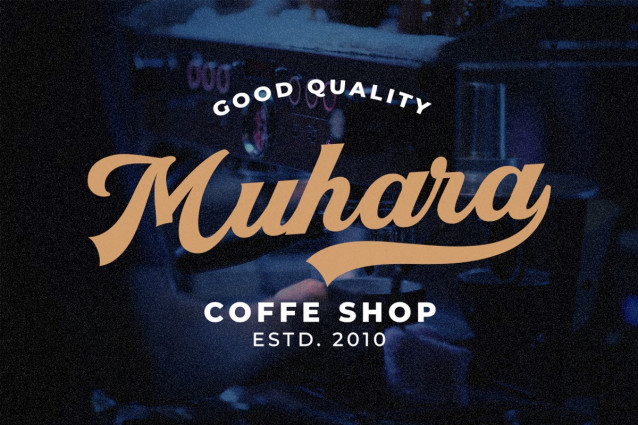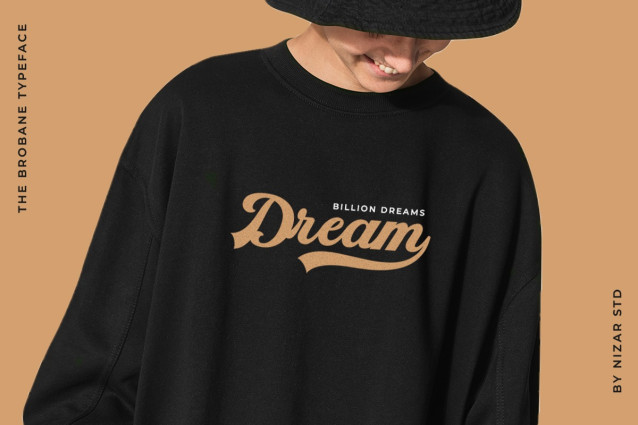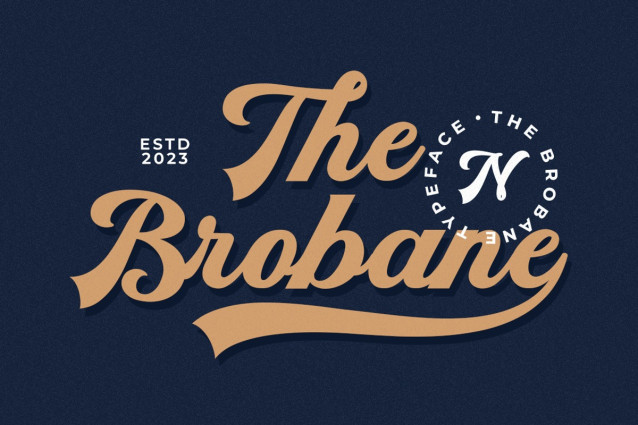
Brobane Script Font
Brobane Script Font is a script typeface with lining brush script and vintage looks. Brobane has lots of alternate characters, swashes, ligatures and multilingual support. It has also a bunch of tails to give the vintage logotype or sports look to your design.
These alternates makes Brobane very versatile. You can design beautiful, elegant and diverse typographic elements with it. It’s well suited for logos, lettering artwork, t-shirt designs, editorial illustrations to name a few.